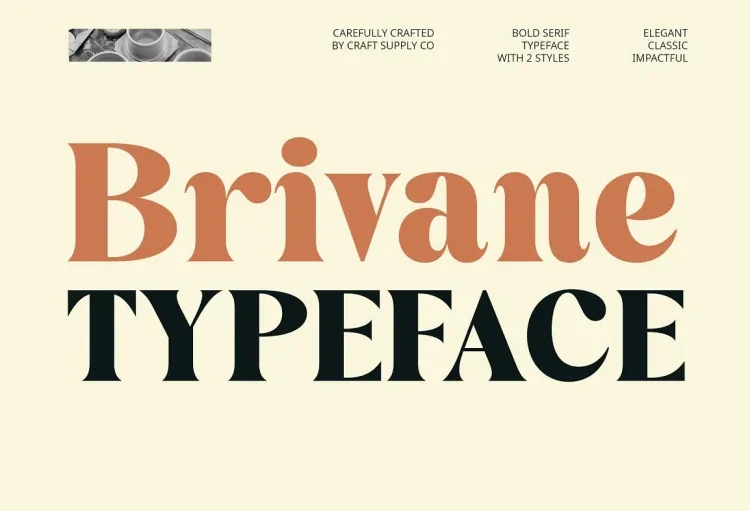
Brivane Font
Brivane is a modern and bold serif font characterized by its thick strokes and distinctive retro flair. This font blends contemporary boldness with a touch of vintage charm, making it an ideal choice for both digital and print designs that need to capture attention and make a memorable impact.
With its strong lines and striking presence, Brivane excels in a variety of applications, including posters, logos, and any creative project where a retro aesthetic is desired. Its design ensures that your content stands out, whether it’s used for eye-catching posters or memorable logos that leave a lasting impression.
The bold strokes and retro influences of Brivane contribute to a powerful visual impact, making it perfect for grabbing your audience’s attention and enhancing the overall appeal of your designs.